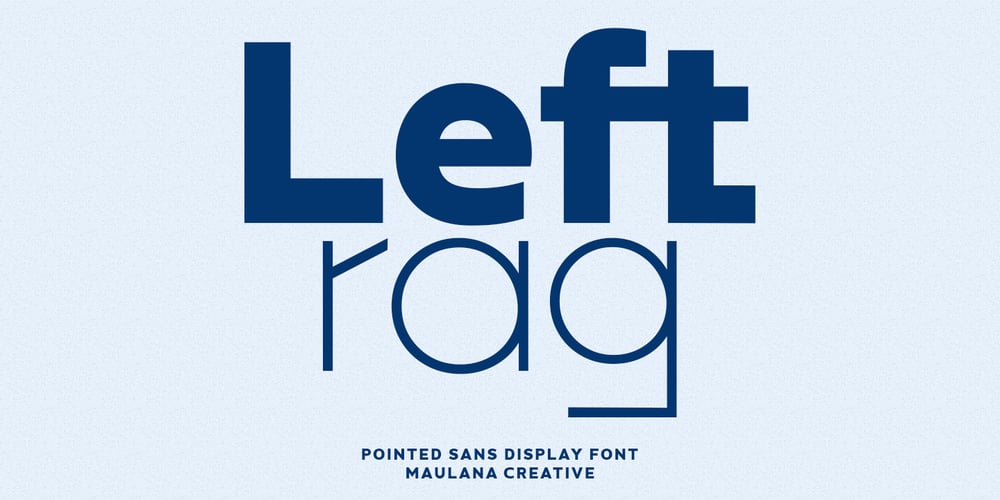
MC Leftrag
MC Leftrag font
MC Leftrag Font Family was designed by Gilang Maulana and published by Maulana Creative. MC Leftrag contains 2 styles and family package options. Leftrag is a contemporary sans serif display font. Bold stroke, fun character with a bit of ligatures and alternates. To give you an extra creative work. Leftrag font support multilingual more than 100+ language. This font is good for logo design, Social media, Movie Titles, Books Titles, a short text even a long text letter and good for your secondary text font with script or serif. Make a stunning work with Leftrag font. Cheers, Maulana Creative